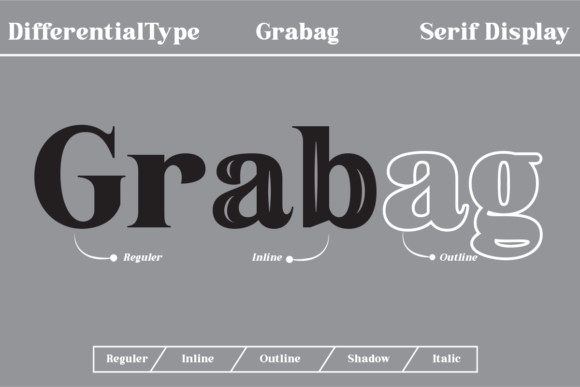
Introducing Grabag Font: A Bold Vintage Display Font for Stunning Designs
Are you looking for a font that can add a touch of masculinity and firmness to your designs? Look no further than Grabag Font, a bold vintage display font that is perfect for creating stunning headlines, branding, magazines, logos, and more. With its unique and stylish design, Grabag Font is sure to elevate your designs to the next level.
What is Grabag Font?
Grabag Font is a bold vintage display font that comes in four styles, offering a range of options for designers and crafters. Its bold and sturdy design makes it perfect for creating eye-catching headlines, logos, and branding materials that require a strong and masculine look. Whether you’re working on a magazine, brochure, or website, Grabag Font is sure to make a statement.
Key Features of Grabag Font
- Bold and Vintage Design: Grabag Font features a bold and vintage design that is perfect for creating stunning headlines and branding materials.
- Four Styles: Grabag Font comes in four styles, offering a range of options for designers and crafters.
- Masculine and Firm Impression: Grabag Font is designed to add a masculine and firm impression to every design, making it perfect for projects that require a strong and confident look.
- Versatile: Grabag Font is versatile and can be used for a wide range of projects, including headlines, branding, magazines, logos, and more.
Why Use Grabag Font?
There are many reasons why designers and crafters should consider using Grabag Font in their projects. Here are just a few:
- Adds a Touch of Masculinity: Grabag Font is designed to add a masculine and firm impression to every design, making it perfect for projects that require a strong and confident look.
- Standout Headlines: With its bold and vintage design, Grabag Font is perfect for creating standout headlines that grab attention.
- Perfect for Branding: Grabag Font is also perfect for branding materials, such as logos and business cards, where a strong and confident look is required.
- Easy to Read: Despite its bold design, Grabag Font is easy to read, making it perfect for body text as well as headlines.
How to Use Grabag Font
Using Grabag Font is easy. Here are just a few tips:
- Pair with Other Fonts: Grabag Font can be paired with other fonts to create a unique and stylish look.
- Use for Headlines: Grabag Font is perfect for headlines, where its bold and vintage design can really make an impact.
- Experiment with Colors: Grabag Font can be used with a range of colors, from bold and bright to muted and subtle.
In conclusion, Grabag Font is a bold vintage display font that is perfect for designers and crafters looking to add a touch of masculinity and firmness to their designs. With its unique and stylish design, Grabag Font is sure to elevate your designs to the next level. Whether you’re working on a magazine, brochure, or website, Grabag Font is a great choice.
- Font Style: Bold Vintage Display Font
- Number of Styles: 4